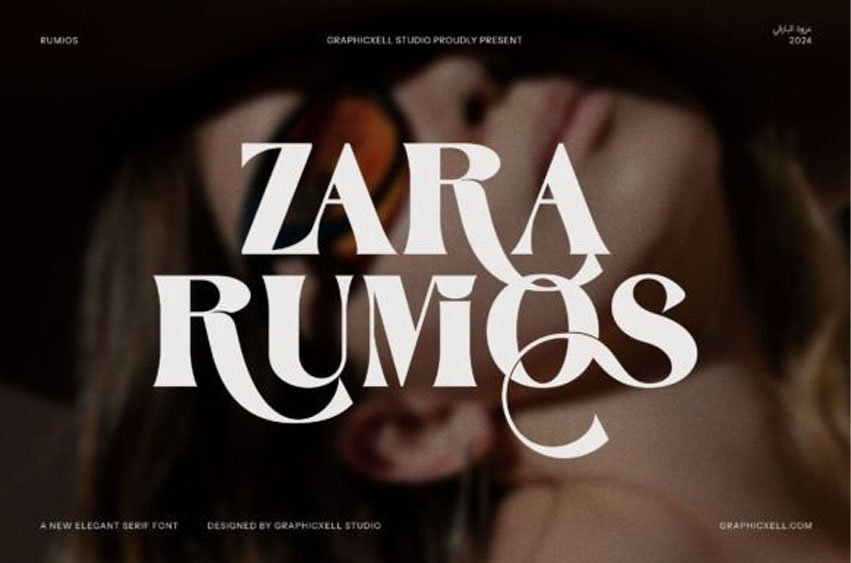
Zara Rumios Font is a sophisticated ligature serif from us. This typeface has been made carefully to make sure its premium quality and luxury feel. The ligatures makes this typeface unique and stand out rather than the regular serif font.
Very suitable for logo, headline, title, and the other various formal forms such as invitations, labels, logos, magazines, books, greeting/wedding cards, packaging, fashion, makeup, stationery, novels, labels or any type of advertising purpose.